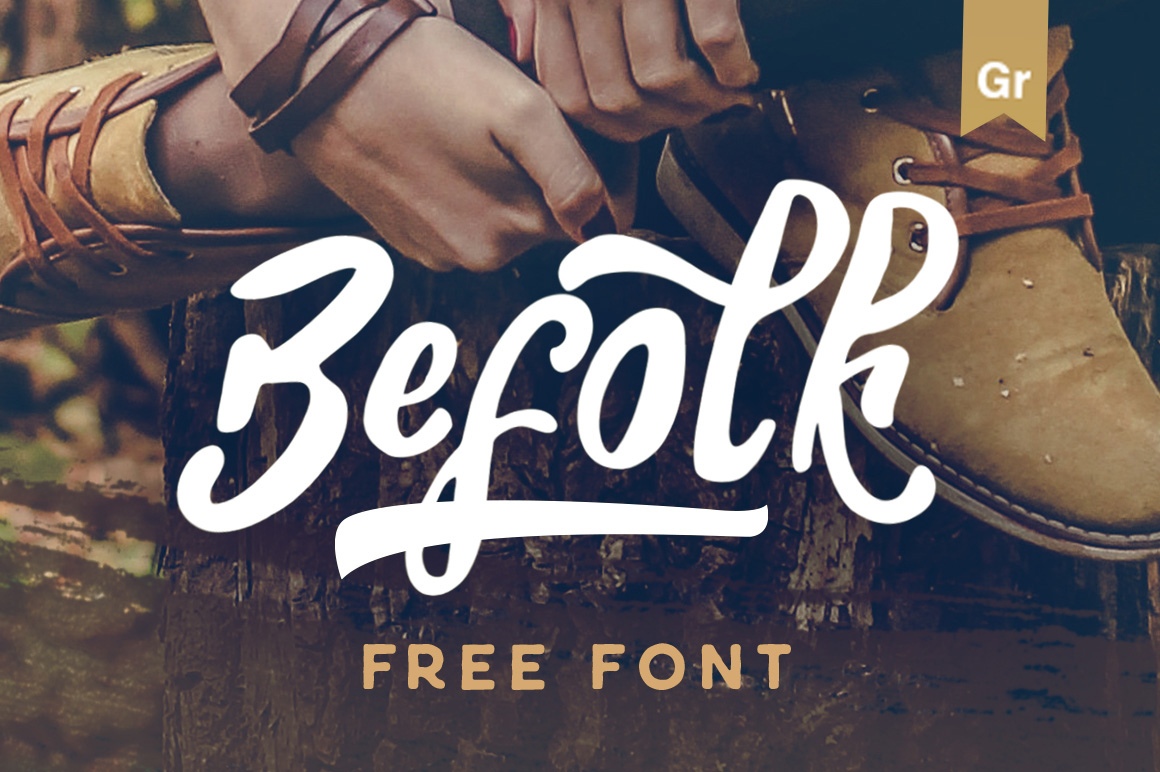
Befolk Script Font
Befolk Script Font is ideal for folk art festivals, artisan craft branding, traditional wedding invitations, heritage museum materials, cultural storytelling projects, handmade product packaging, community celebration posters, folklore book covers, rustic café signage, and authentic local tourism branding.
What makes Befolk Script Font so exciting is its genuine celebration of traditional craftsmanship and cultural storytelling that honors generations of folk artistry through beautiful hand-lettered expression. This lovingly crafted typeface features flowing script letterforms with organic character variations and traditional calligraphic flourishes that immediately convey authenticity, cultural heritage, and the timeless beauty of handmade traditions. The font's artisanal construction and folk-inspired aesthetic create an immediate sense of community connection and cultural continuity, making it perfect for projects that need to communicate cultural pride, traditional values, and the enduring power of folk wisdom to audiences seeking authentic cultural experiences and meaningful community connections.
The Befolk Script Font family typically includes multiple traditional weights and folk styles, often featuring regular, bold, and decorative variations along with ornamental flourish versions. Cultural font collections frequently offer additional folk elements such as traditional ornaments, cultural symbols, and heritage-inspired decorations that enhance the authentic folk aesthetic and provide designers with comprehensive tools for creating culturally rich and emotionally resonant communications.
The cultural authenticity of Befolk Script Font makes it particularly effective for organizations and communities where preserving traditional values and celebrating cultural heritage are essential for maintaining identity and continuity. Cultural marketers and community organizers will find this font especially valuable for materials that must establish immediate cultural credibility and connect with audiences seeking authentic traditional experiences.
What sets Befolk Script Font apart is its ability to honor traditional craftsmanship while remaining accessible to contemporary audiences. This bridging characteristic makes it suitable for cultural applications where respecting heritage traditions while engaging modern communities is crucial for cultural preservation and growth.
Professional designers recognize that Befolk Script Font brings invaluable cultural depth to projects across industries including tourism, artisanal crafts, cultural education, and community development. Its folk character and traditional appeal make it essential for organizations whose mission centers on preserving, celebrating, and sharing cultural heritage with diverse audiences.
The respectful cultural interpretation of Befolk Script Font ensures consistent authentic representation across all heritage communication applications while honoring traditional artistic practices.